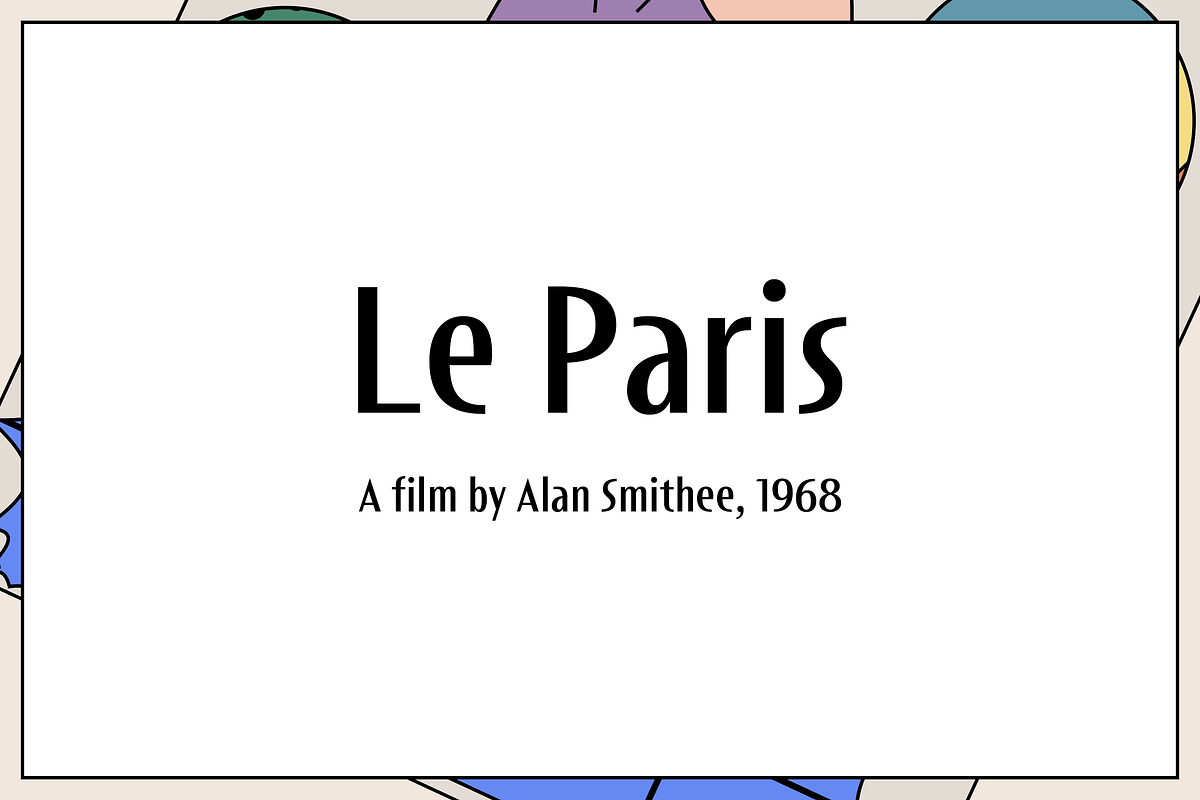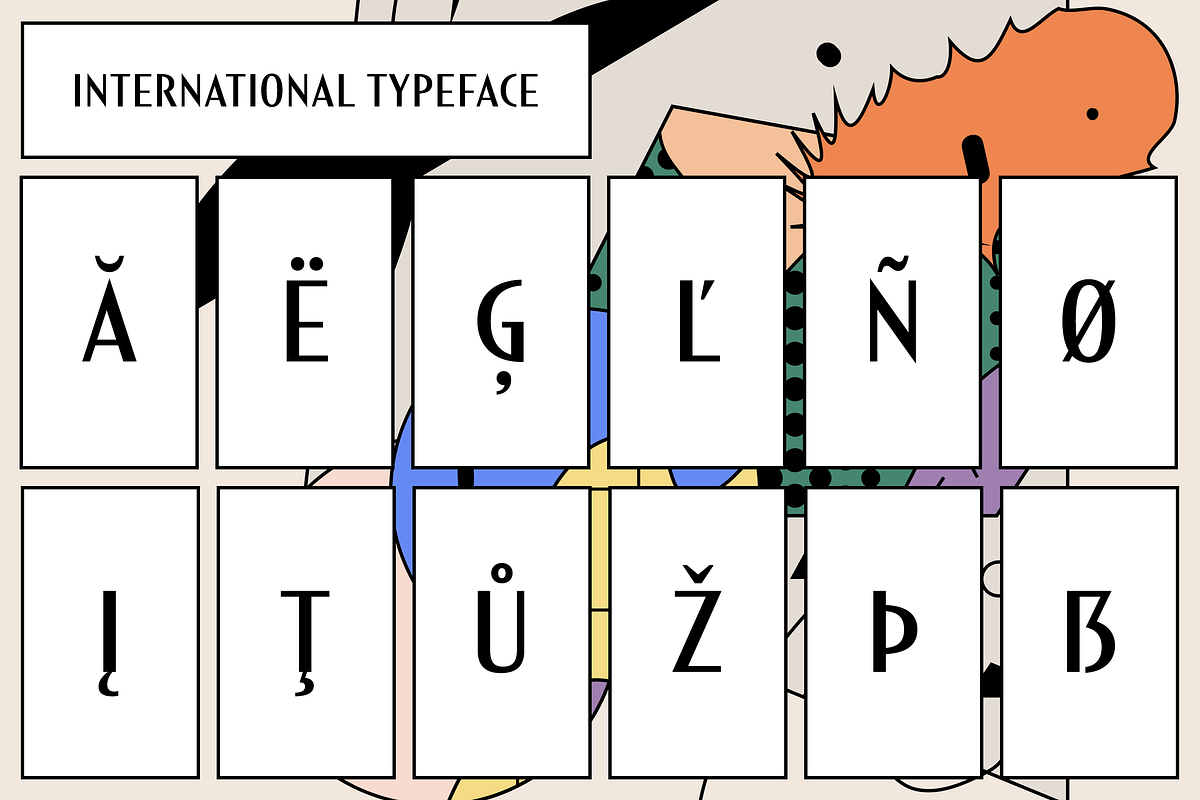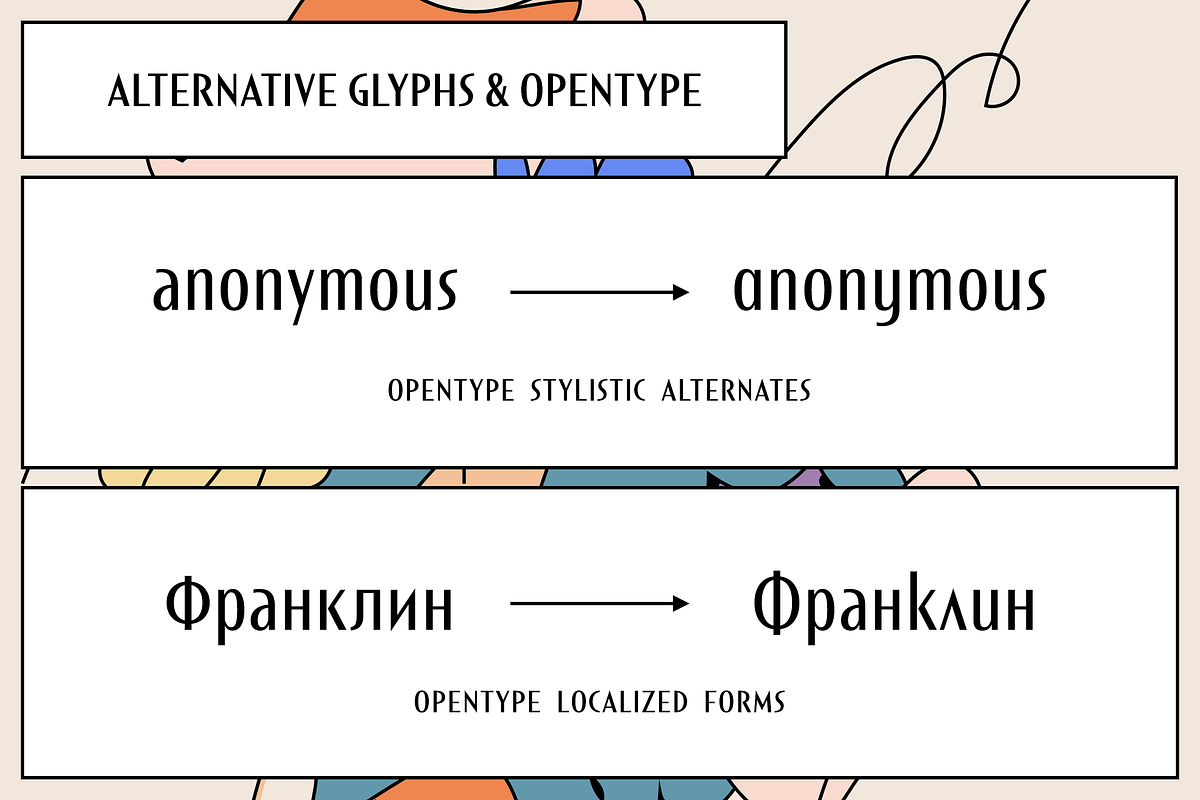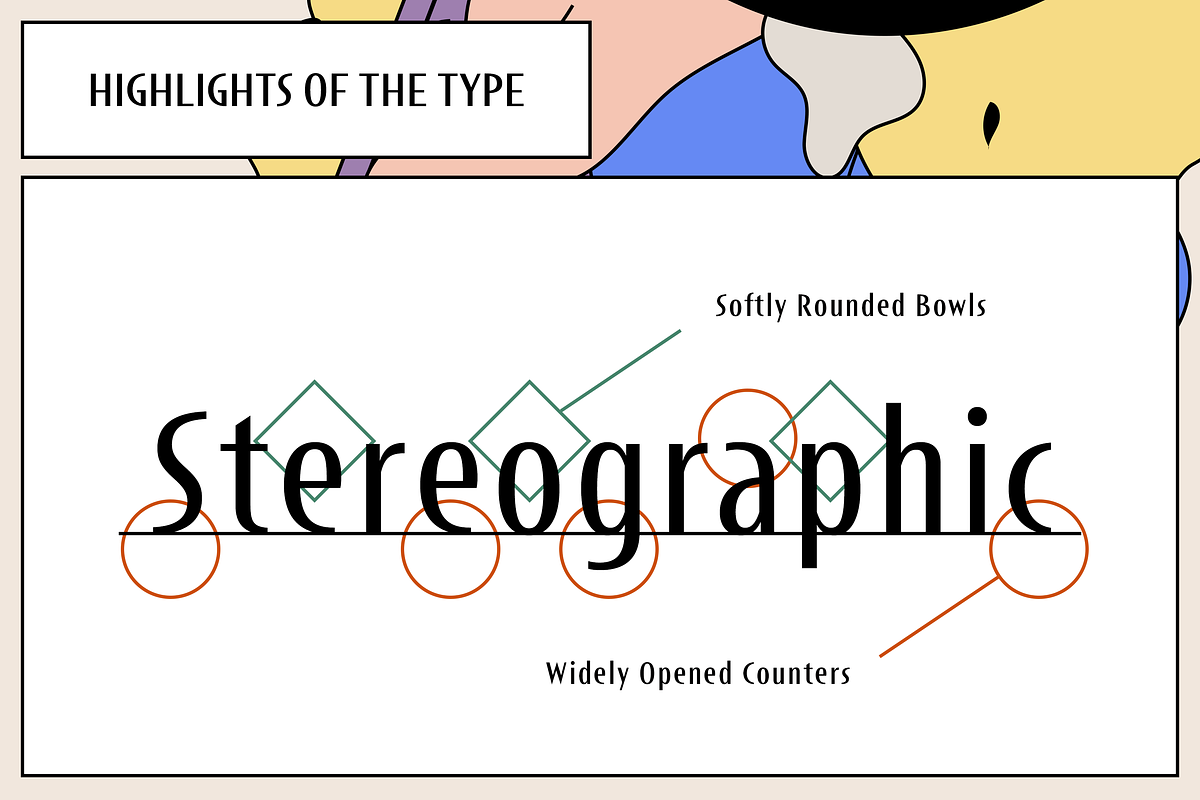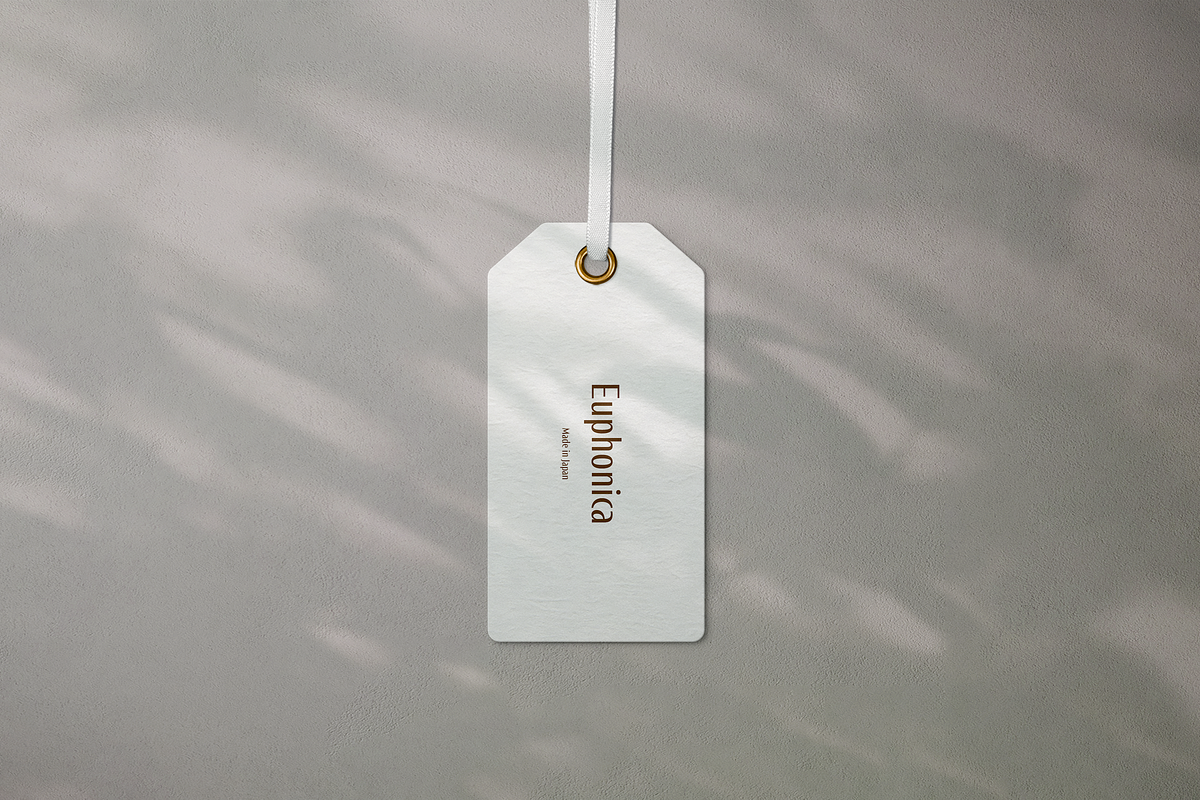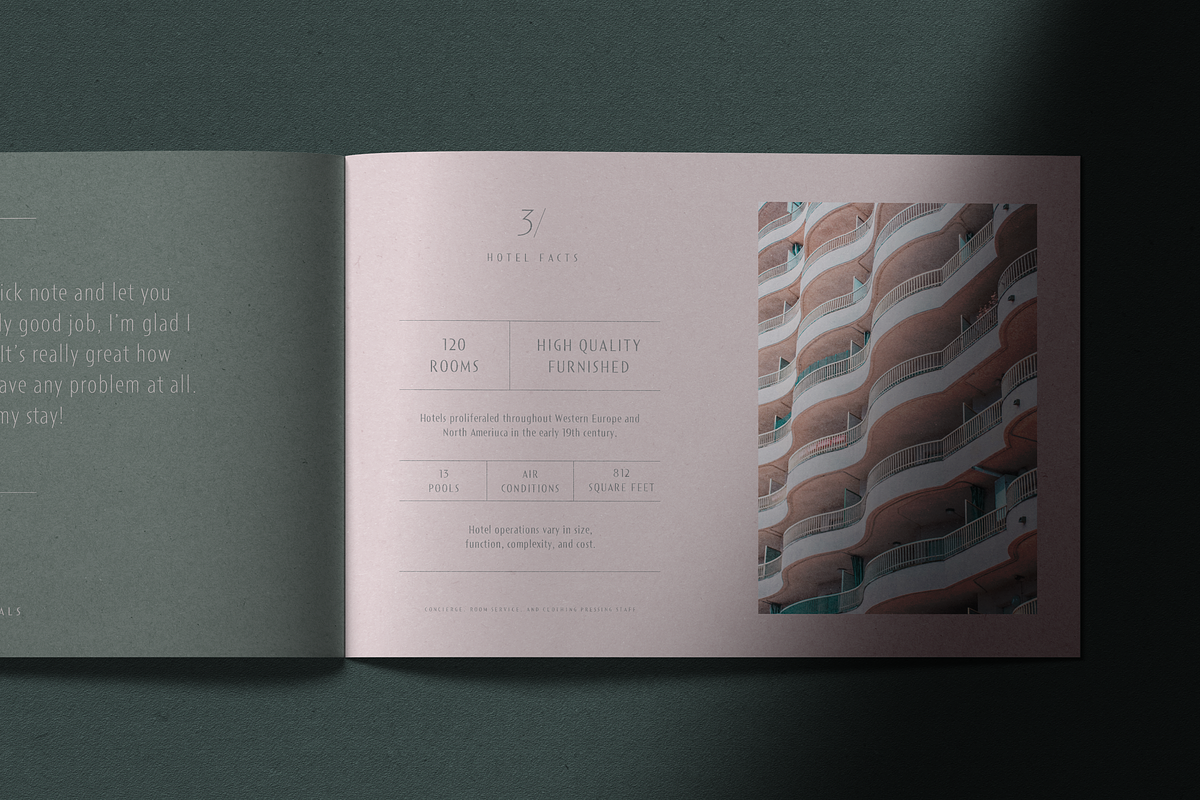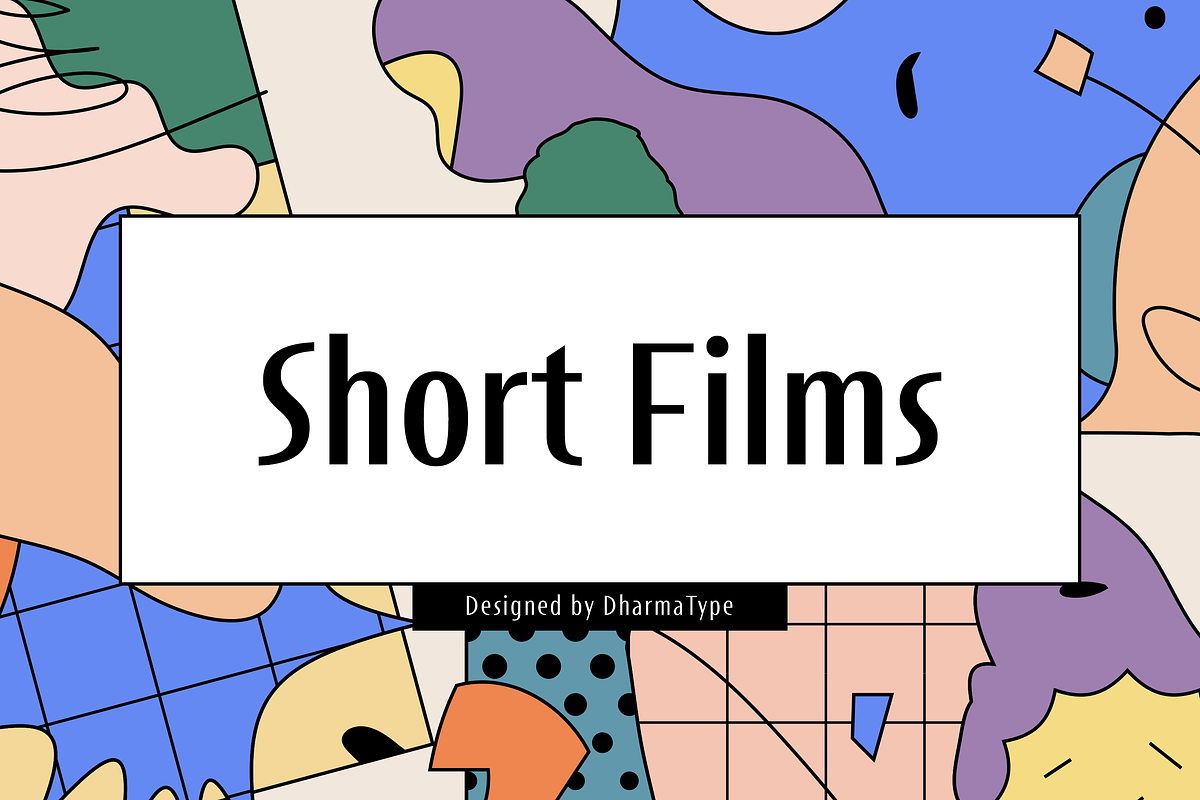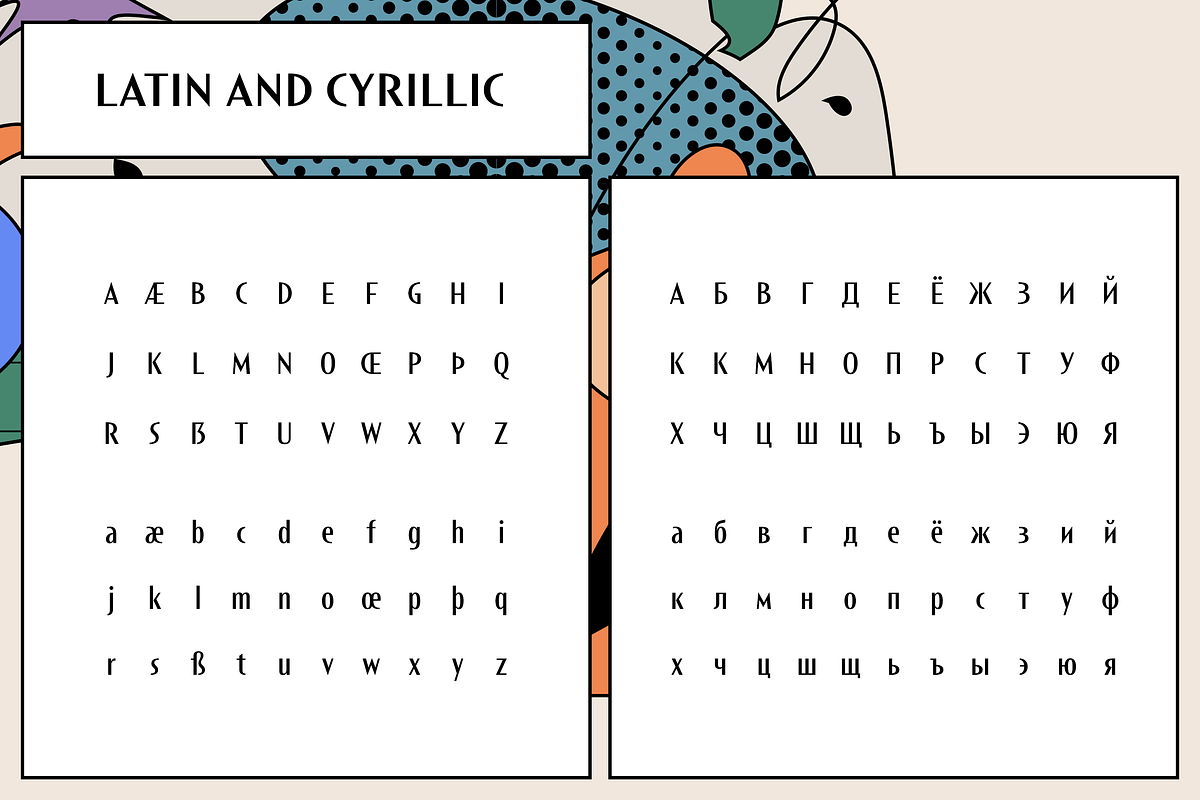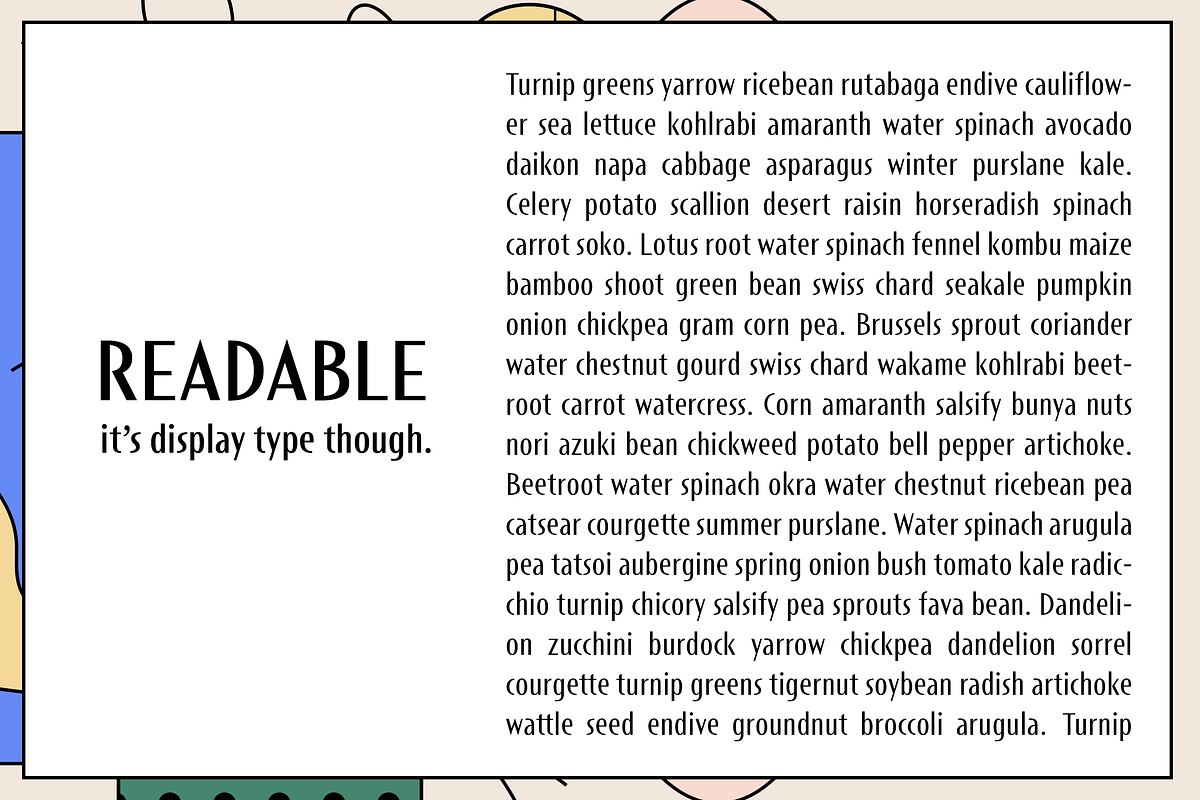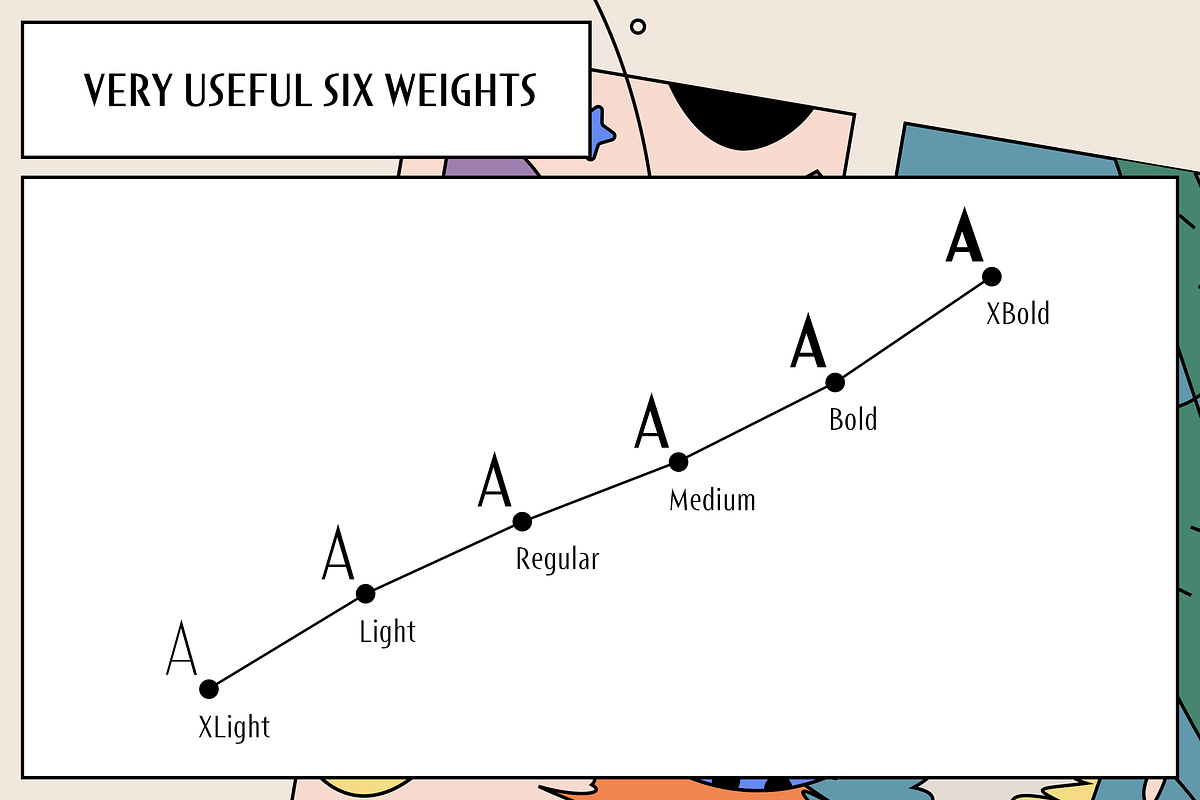
Short Films
Short Films is a fresh and distinctive type family that draws inspiration from Art Deco, while introducing a unique blend of styles that feels both retro and futuristic, geometric and humanistic.
Its wide-open counters and softly rounded bowls give the typeface a gentle, contemporary rhythm. A finely tuned contrast between thin and bold strokes adds a dual character—pop yet elegant, feminine yet structured, casual yet refined. What sets Short Films apart is its rare coexistence of decorativeness and readability. This makes it suitable not only for eye-catching titles and logos, but also for body text, where clarity remains essential.
The family includes 6 weights, each with matching italics, offering flexibility for a variety of creative applications. Short Films supports a broad range of international Latin and basic Cyrillic languages, including Basic Latin, Western, Central, and South-Eastern European scripts. It also covers key encodings such as Mac Roman, Windows-1252, and Adobe Latin 1–3, ensuring smooth integration across print and digital platforms.